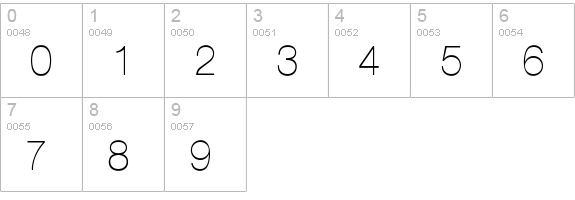
Olnova-Light is a refined, elegant variant in the Olnova typeface family \xE2\x80\x94 well suited to elegant body text, refined sub-headings, and luxury branding.
Olnova-Light is a modern and elegant sans-serif font that exudes sophistication and charm. Its sleek lines and balanced proportions make it perfect for a wide range of design projects, from branding to editorial layouts. The clean and minimalist design of Olnova-Light gives a contemporary feel while maintaining readability and versatility. This font is a great choice for those looking to add a touch of refinement to their designs. Whether you're creating a logo, website, or print materials, Olnova-Light will elevate your project with its timeless appeal. The best part? Olnova-Light is available for free download at FontsMarket.com. This means you can access this stunning font without any cost and use it in your work without any restrictions. Don't miss out on the opportunity to enhance your designs with the beauty of Olnova-Light.